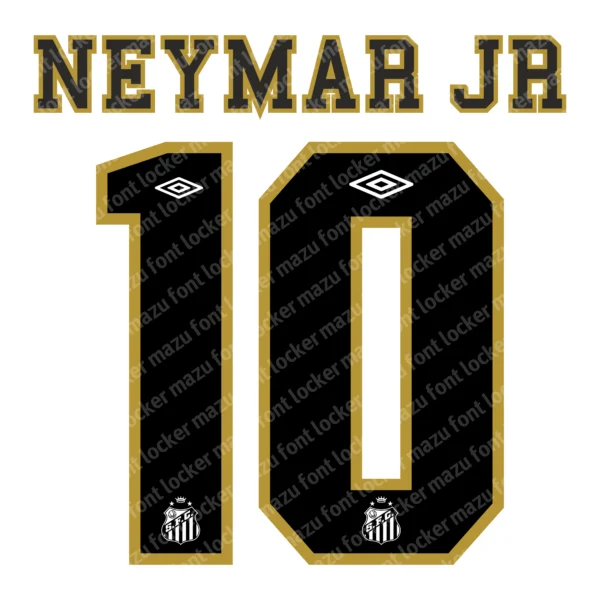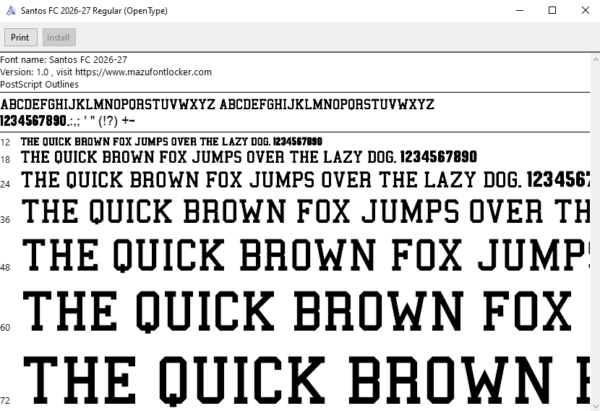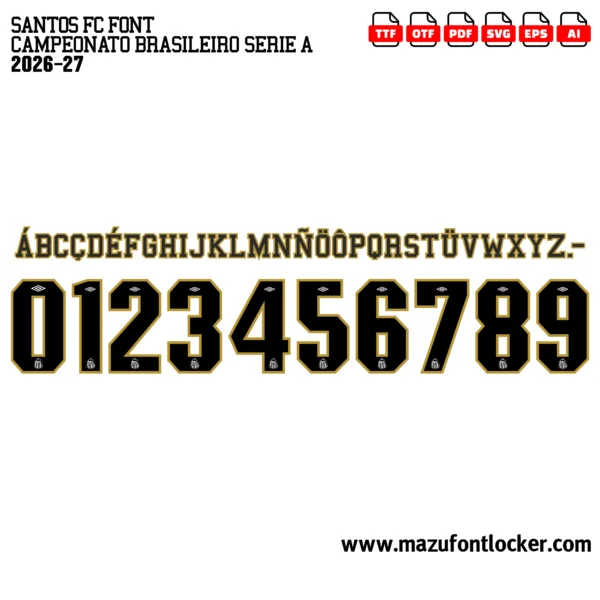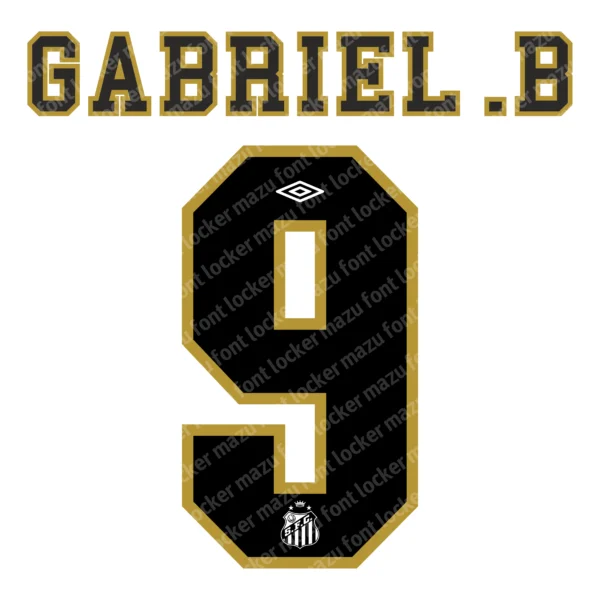
Santos FC 2026-27 Font Vector – Stunning Santástico Brazilian Icon
This font captures the bold, fearless, vibrant, and ultra-premium lettering that perfectly reflects Santos FC’s legendary Brazilian heritage combined with the fierce, unstoppable, and magical spirit of the Peixe — delivering unmatched elegance, intense passion, elite craftsmanship, and pure Santos fire for premium jersey mockups, epic football designs, spectacular sports visuals, standout fan creations, and professional branding projects.
Santos FC 2026-27 Font Vector – Authentic Peixe Typeface
The Santos FC 2026-27 Font Vector is a premium typeface that accurately recreates the official match lettering worn by Santos FC during the 2026-2027 season. This high-quality vector font kit captures the bold, elegant, and dynamic typography that represents the rich heritage, attacking flair, and legendary spirit of the Peixe.
Designed for professional designers and passionate Santos supporters, the Santos FC 2026-27 Font Vector delivers perfect authenticity for creating realistic jersey mockups, fan merchandise, matchday posters, social media graphics, and Brazilian football content. It pairs beautifully with the iconic white and black Santos kit, one of the most recognizable club identities in Brazil and South America.
Why Choose Santos FC 2026-27 Font Vector
This font stands out because of its sharp vector precision and strong club identity. Every letter and number is crafted to match the exact style used on the players’ shirts during Santos’ 2026-2027 campaign. Whether you are creating realistic kit templates or exciting Peixe-themed content, the Santos FC 2026-27 Font Vector gives your designs that authentic Vila Belmiro atmosphere.
The letterforms in the Santos FC 2026-27 Font Vector are bold, modern, and highly readable. The strokes feature elegant geometric construction combined with athletic styling, creating a professional appearance that stands out on jerseys while preserving Santos’ legendary football heritage and Brazilian passion.
The numerals feature strong curves and clean edges, delivering a confident and premium appearance. This vector design ensures flawless scalability and excellent legibility across both print and digital applications.
- Full uppercase A–Z and numbers 0–9 in authentic Santos FC 2026-27 style
- Multilingual Latin character support including Portuguese accents and special characters
- Includes the exact crest glyph placement used beneath player numbers
The Santos FC 2026-27 Font Vector is an independently designed typeface package. It is carefully crafted to replicate the official shirt lettering style used during Santos’ 2026-2027 season. This font kit is perfect for creative projects, fan edits, football-inspired artwork, and custom sports graphics.